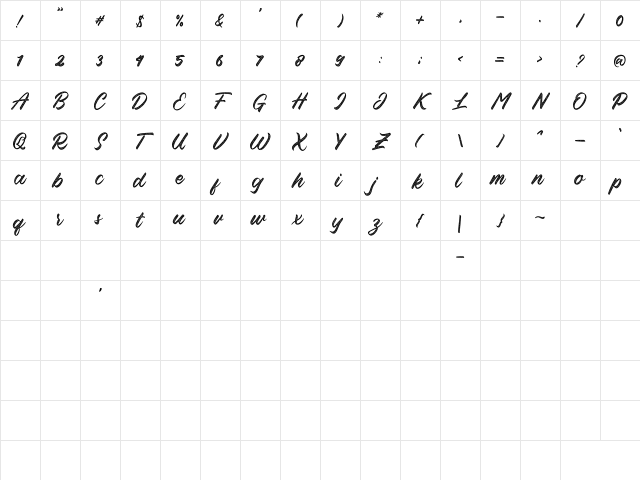
Complete Blessed Friday Textured Regular glyph index. Displaying only characters natively supported by Blessed Friday Textured Regular font.
Blessed Friday Textured embraces imperfection - its rough, textured character adds raw authenticity to designs that want to feel lived-in and unconventional.
Pro Tip: Use Blessed Friday Textured at larger sizes where the texture and irregularity of each letterform can be clearly seen - it loses its character at small sizes.